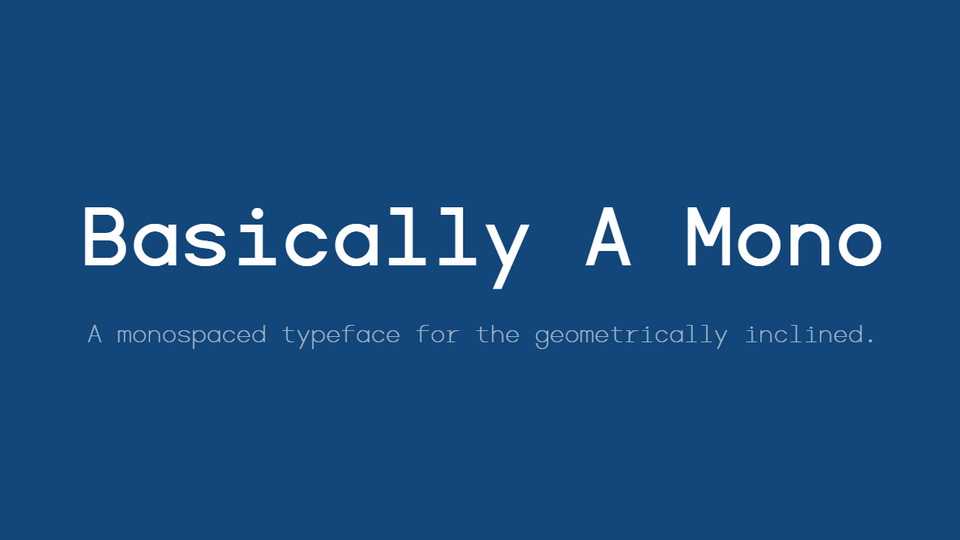
Download Basically A Mono (BAM) typeface, a monospaced and monolinear font family with 7 weights, constructed from basic geometric components – lines and circles.
Designer: Mental Design